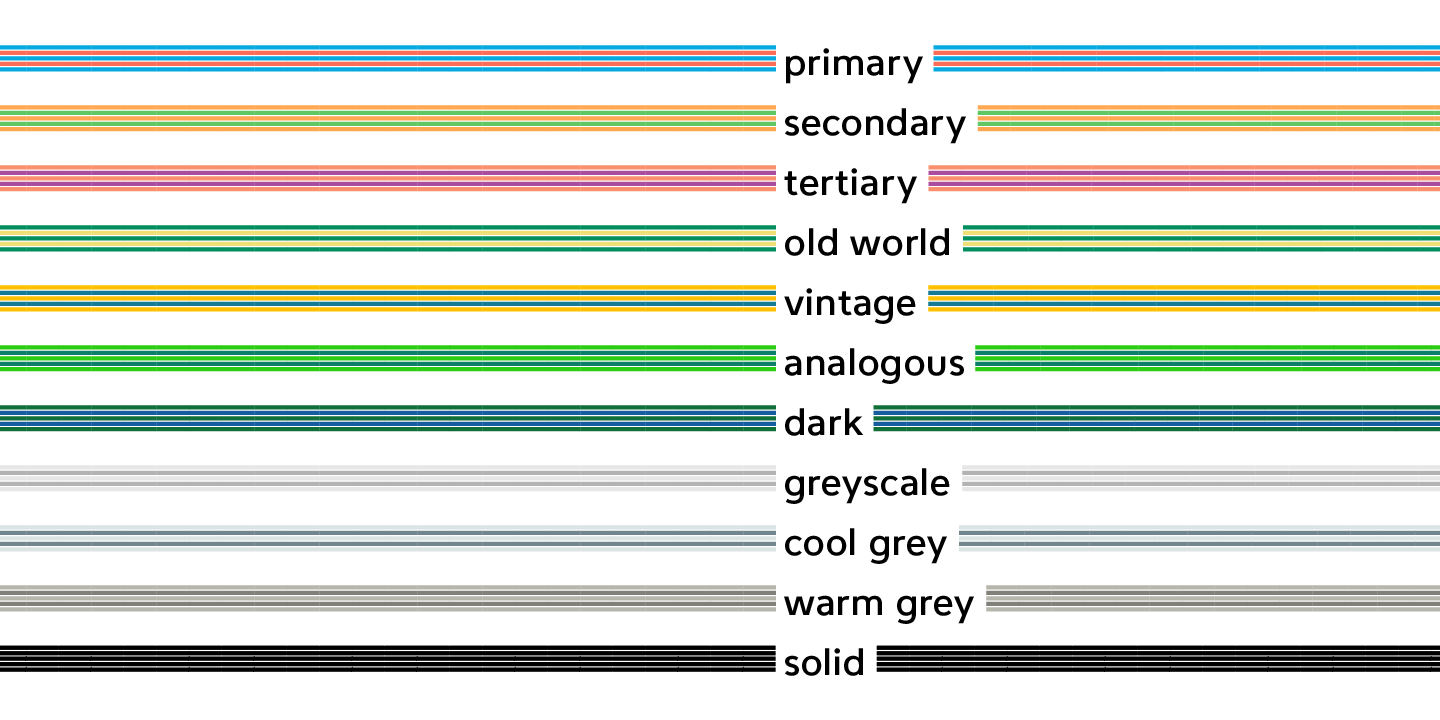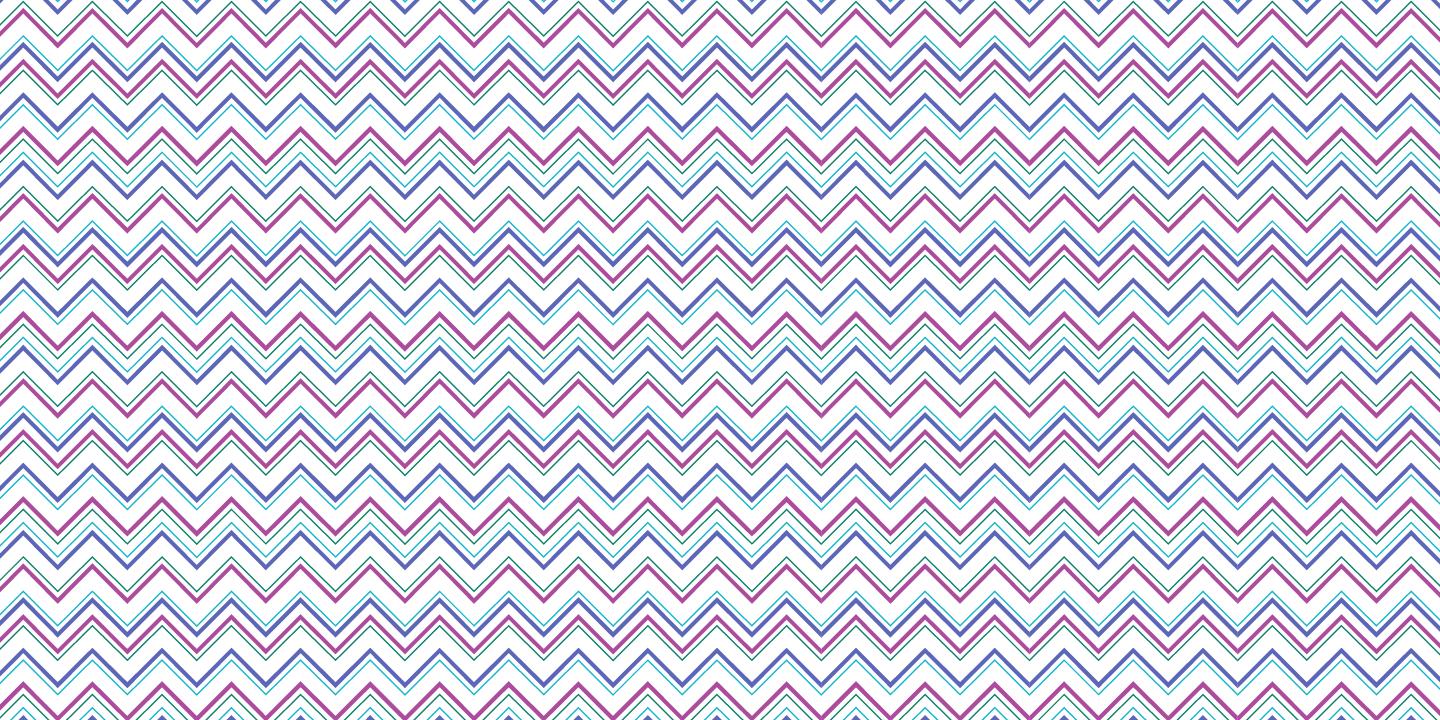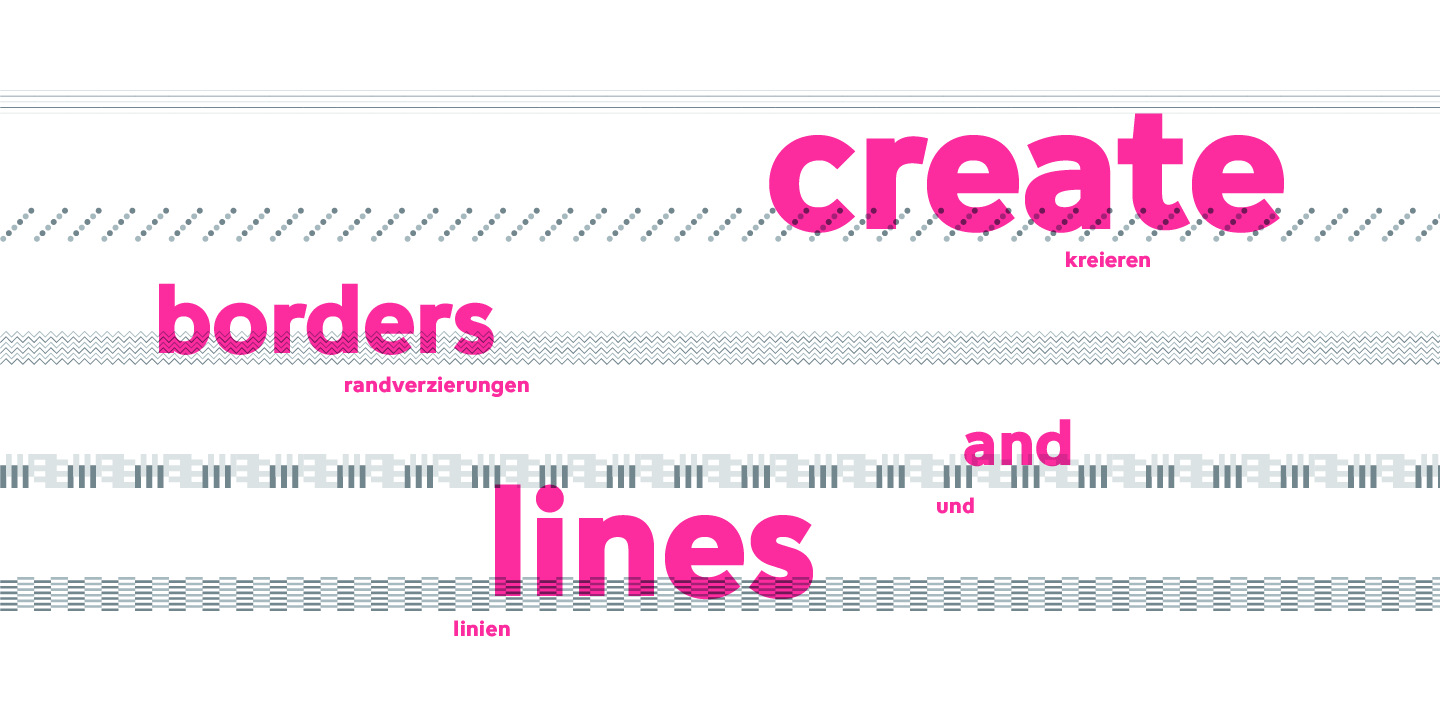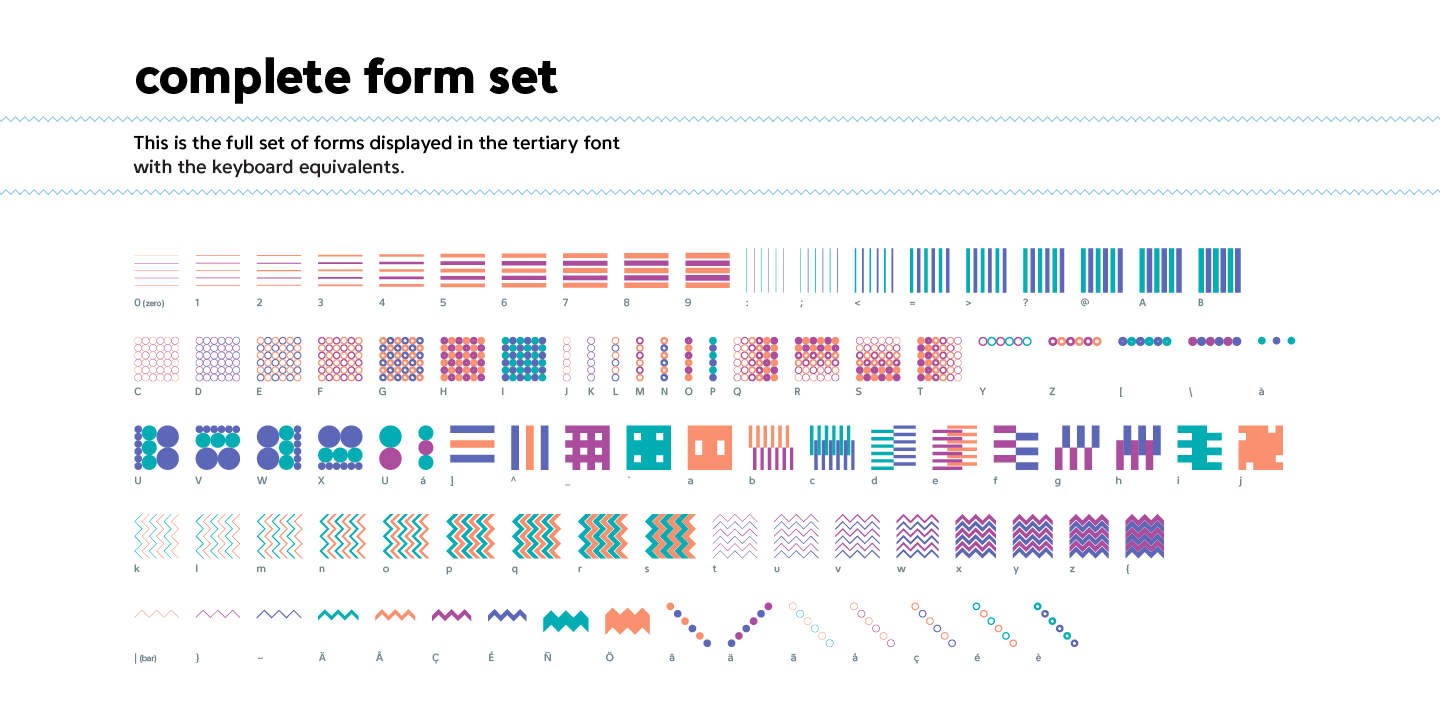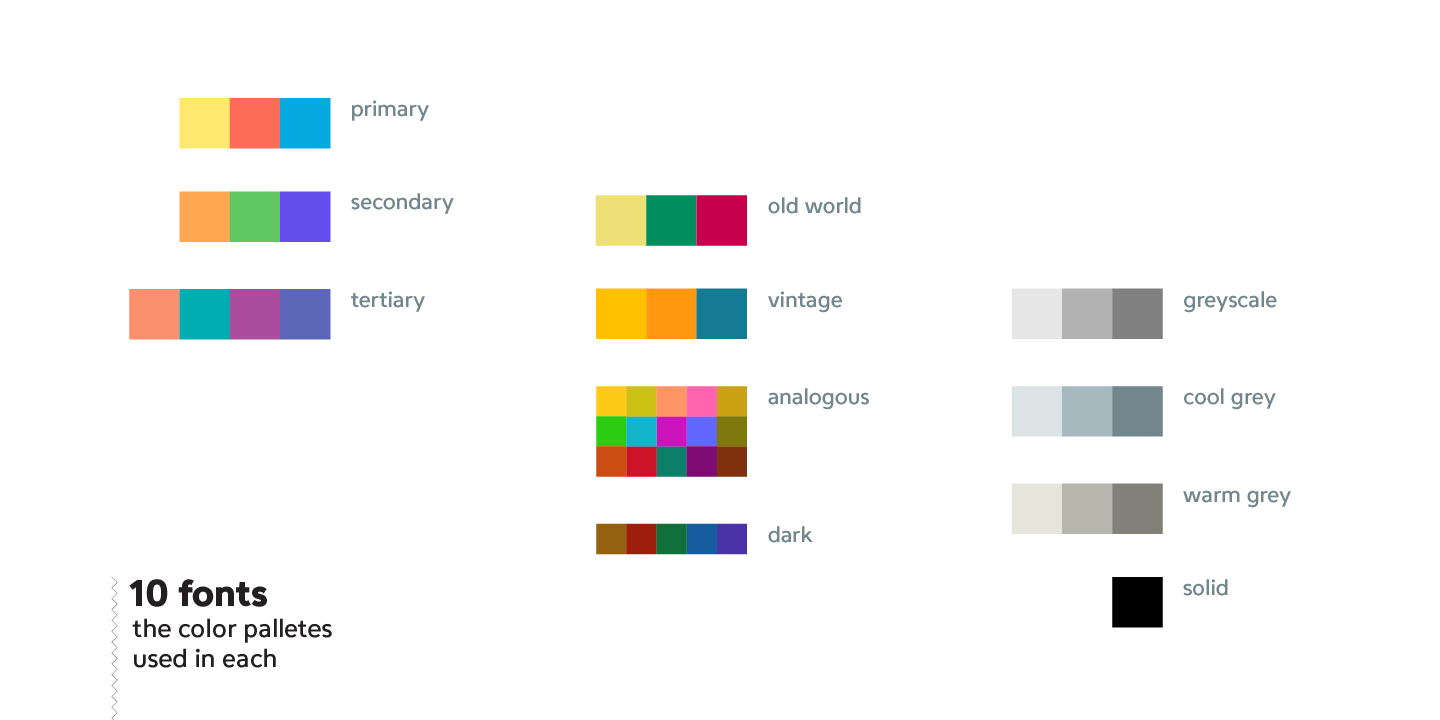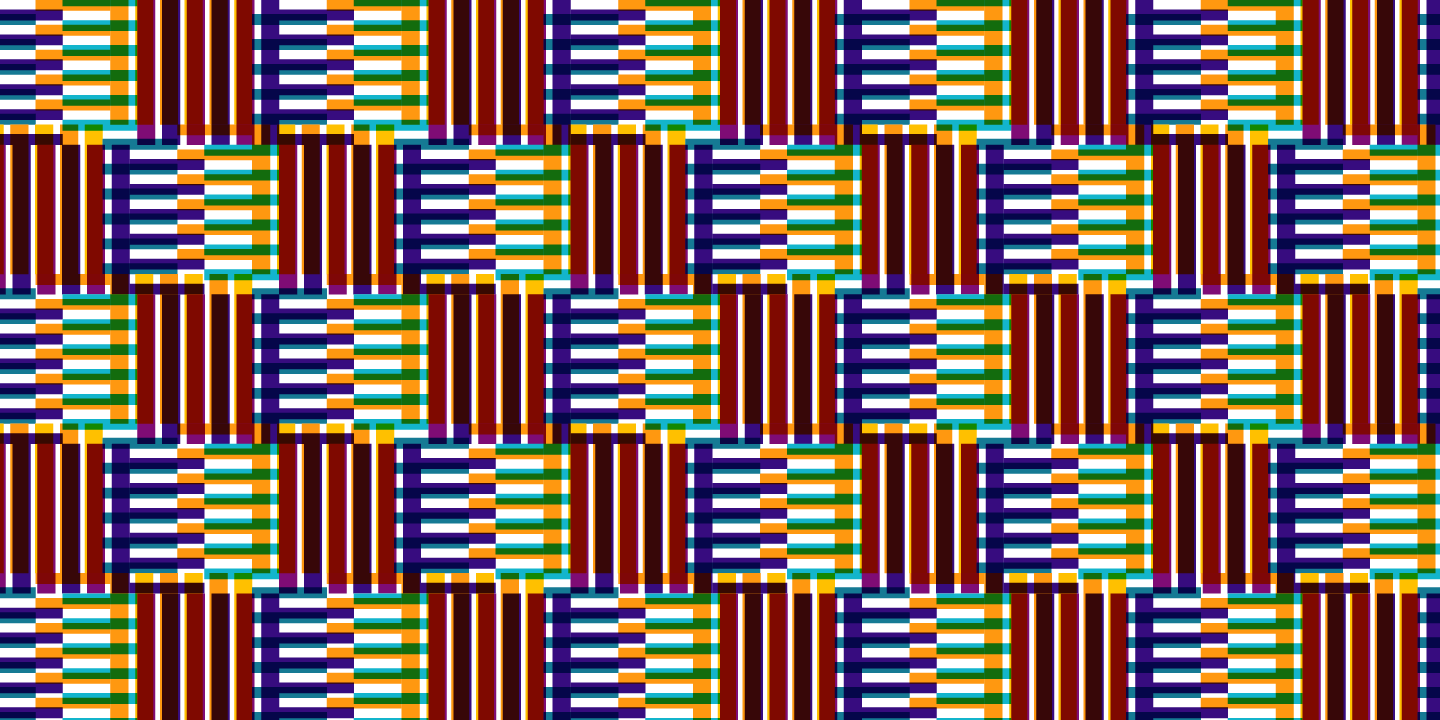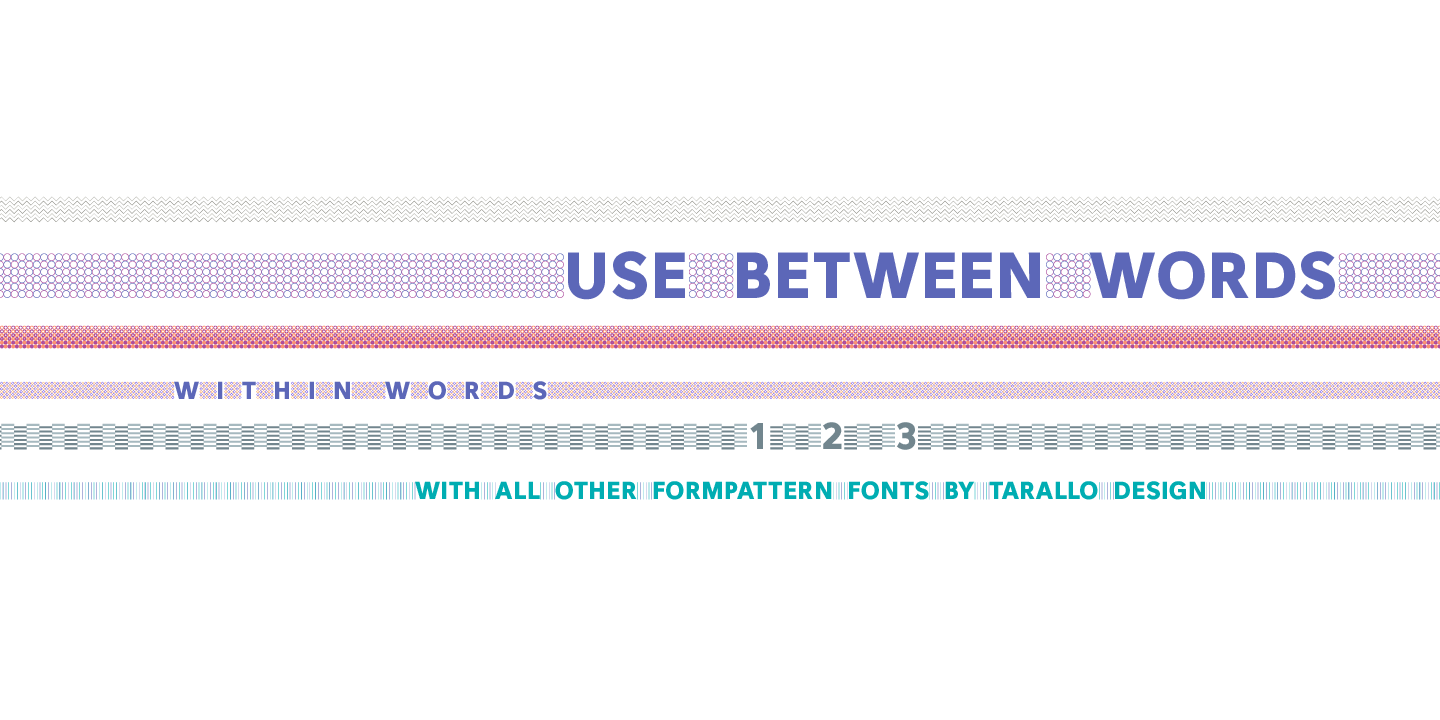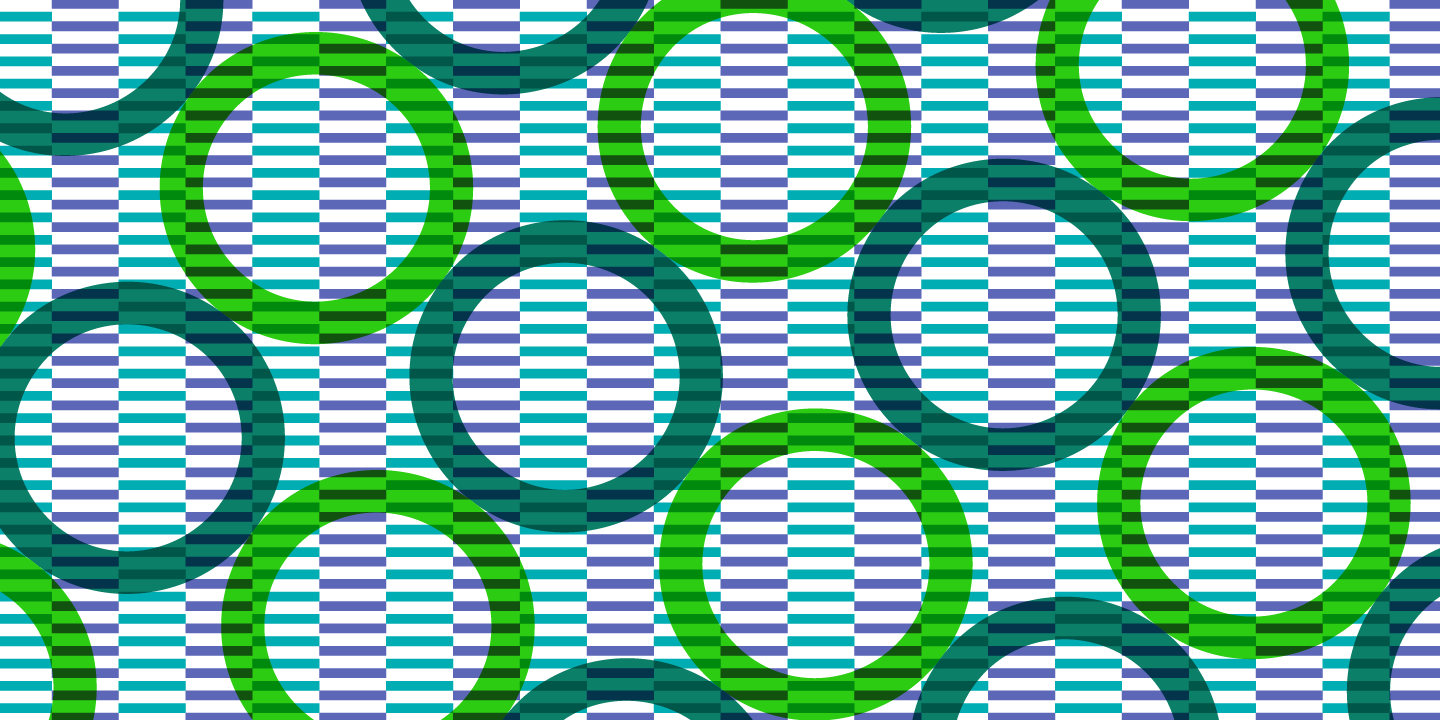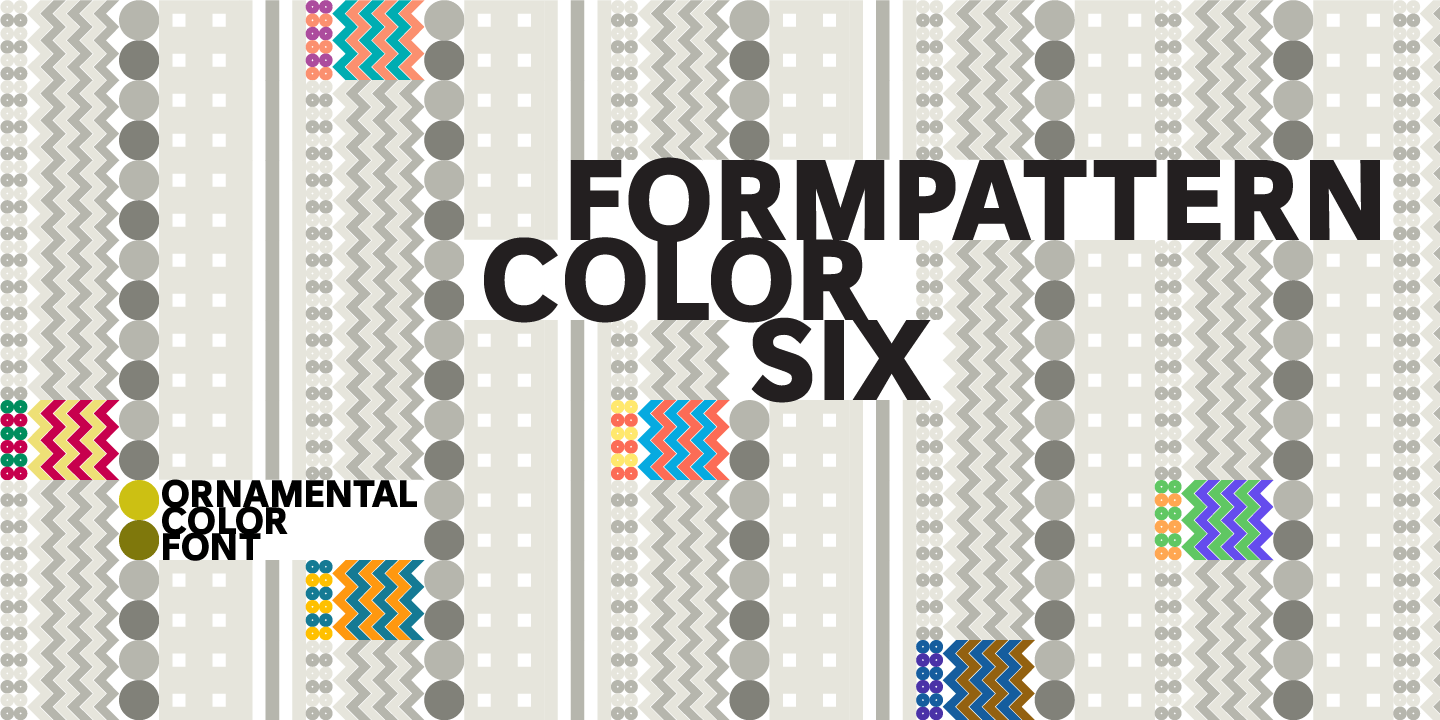
FormPattern Color Six
About FormPattern Color Six
Use this font to make lines, borders, patterns, backgrounds, unique bullets, or use it inline within text. Let your imagination explore the possibilities to combine these geometric shapes. Use letter spacing to connect the shapes in a continuous pattern,…